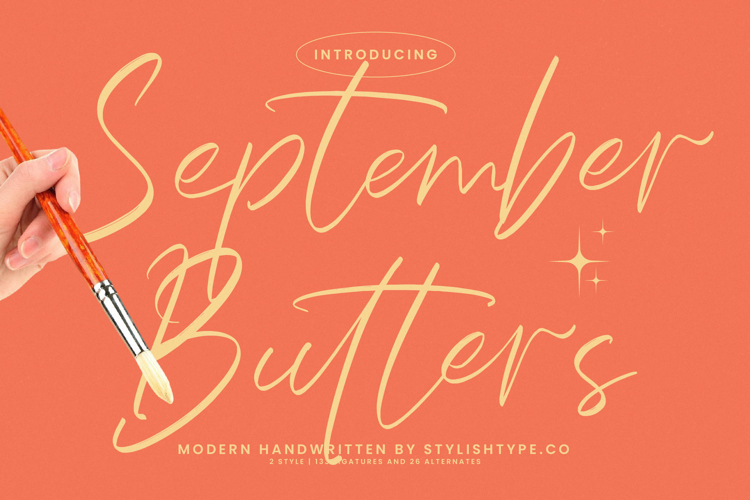
September Butters - Modern Handwritten Font
Achieve immediate brand recognition and resonance across multiple platforms. September Butters - Modern Handwritten Font is perfectly suited for sophisticated applications such as luxury branding, exclusive wedding invitations, high-end product packaging, and editorial magazine titles. Its fluid movement ensures that logos and headers feel organic yet polished, delivering an aesthetic that is both timeless and contemporary. Utilize the rich set of alternates and ligatures included for unmatched customizability.